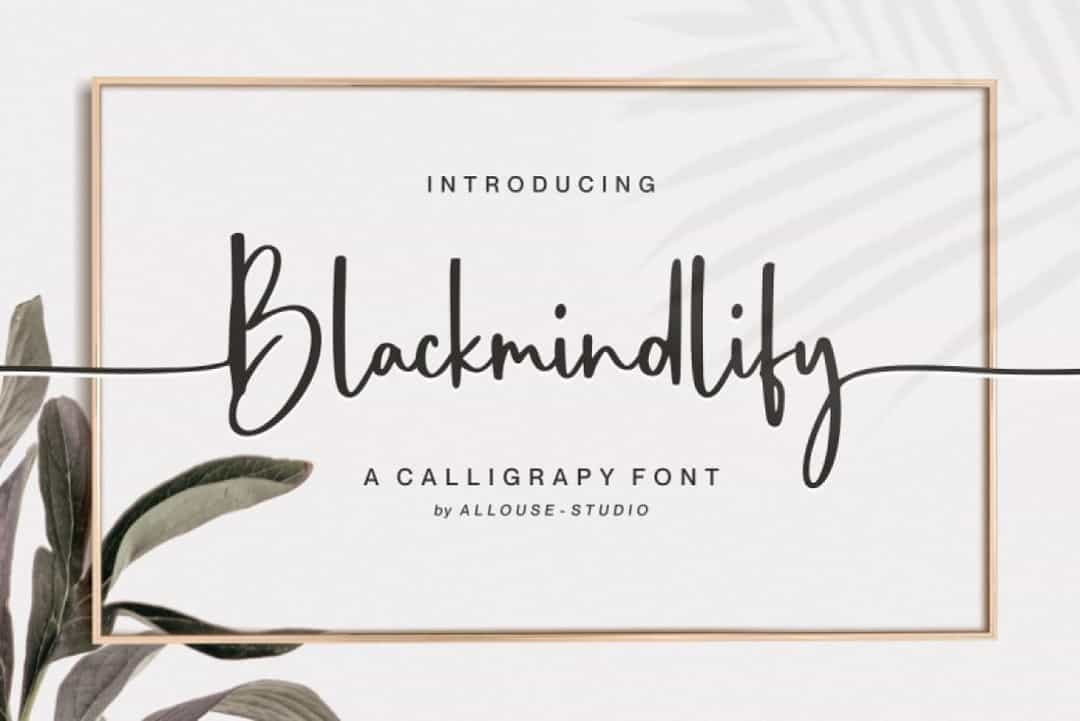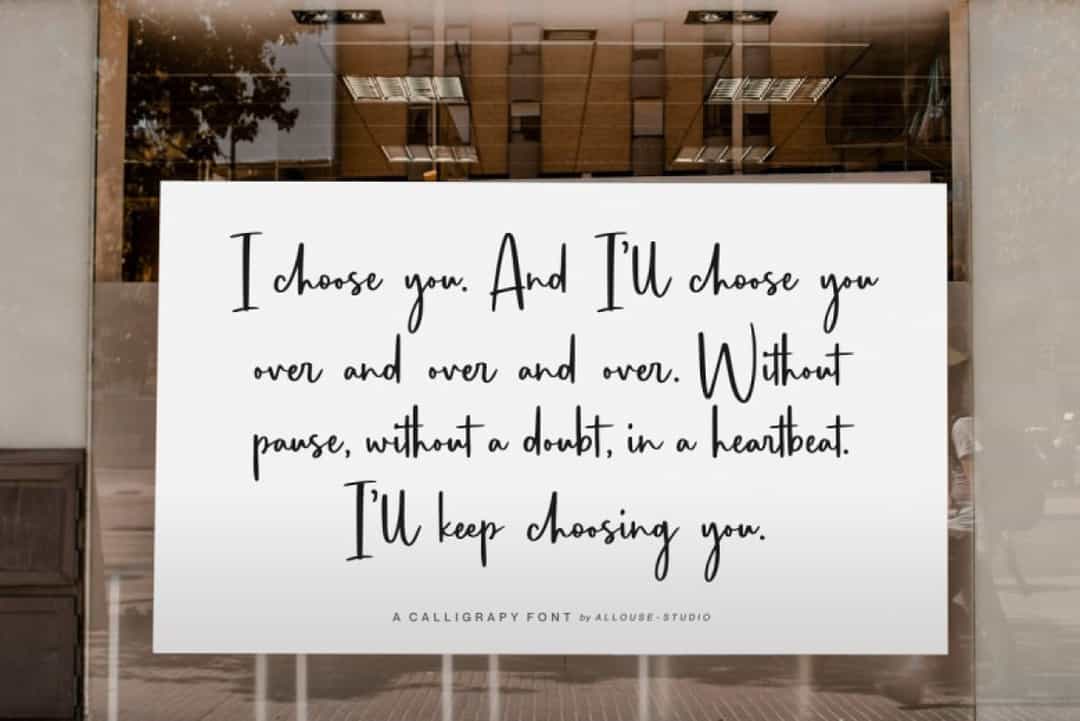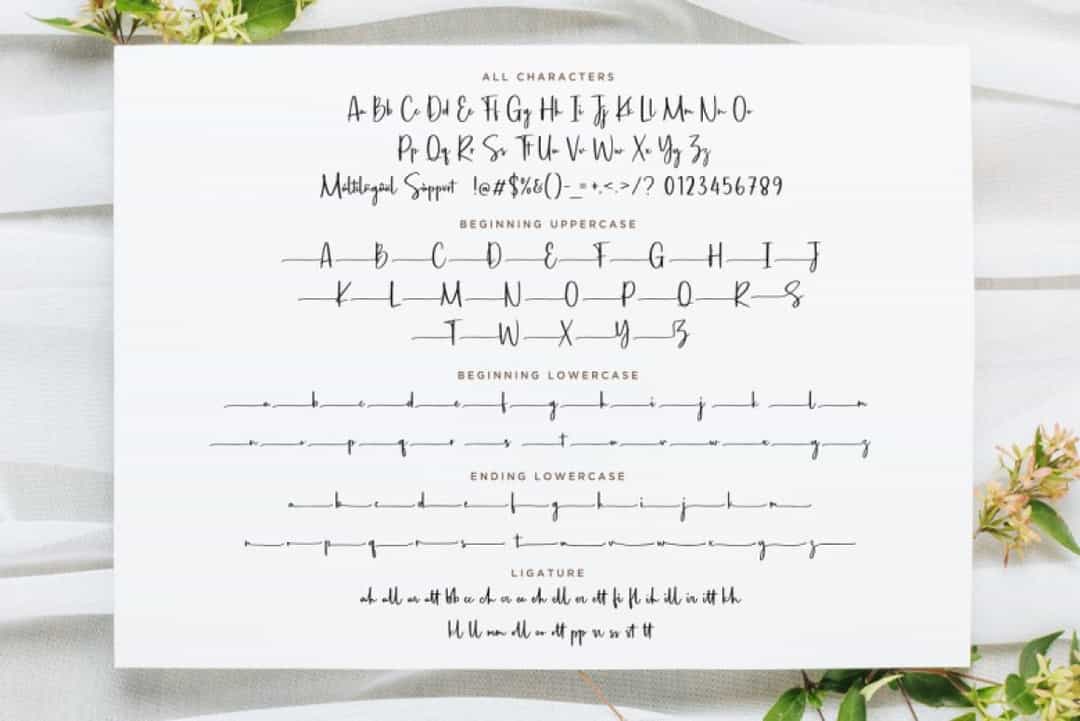
Blackmindlify Calligraphy Font is proud to present, ideal for title, logo, product packaging and branding projects, Megazine wedding magazines and social media as well as writing words in the background.